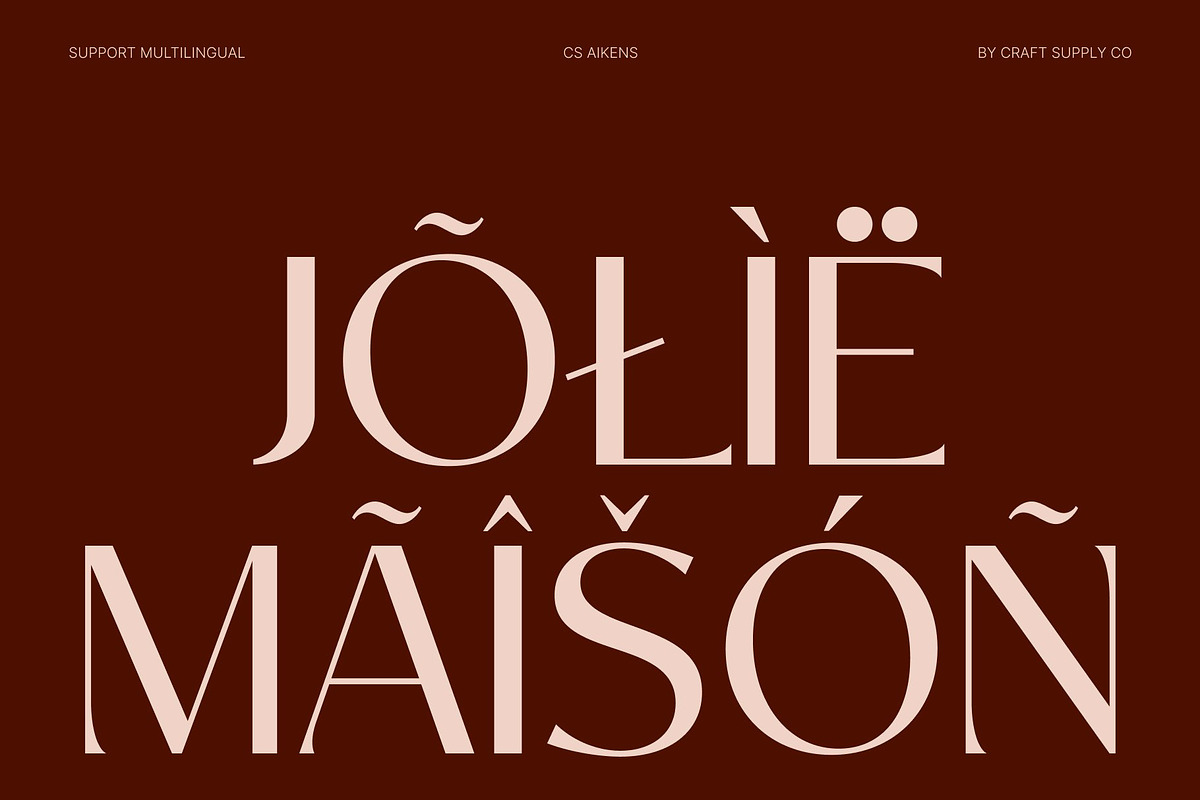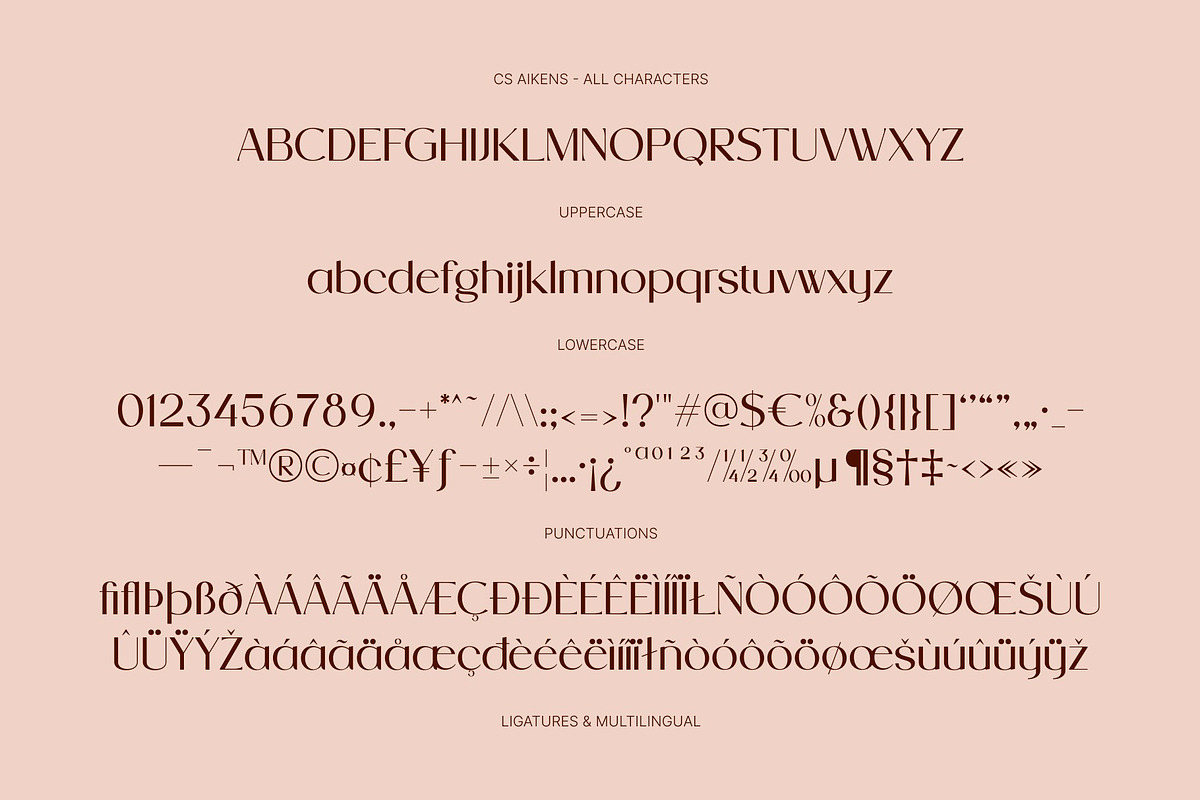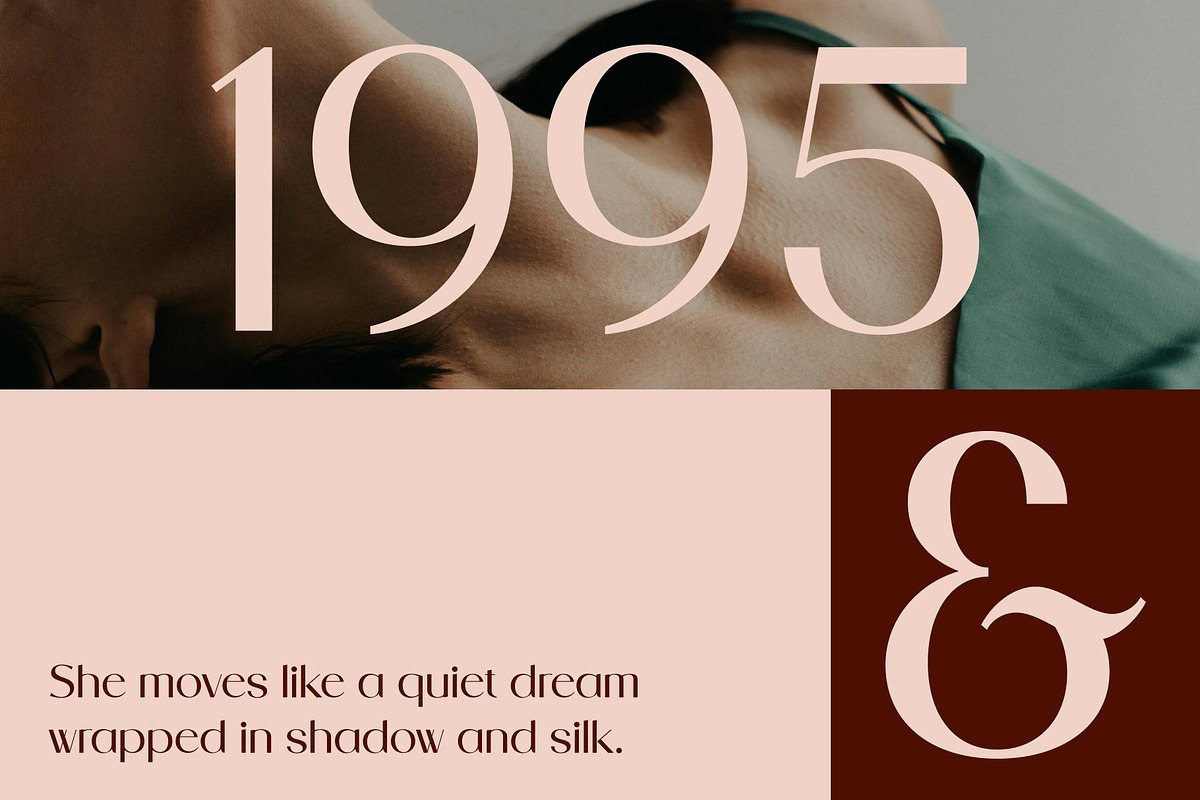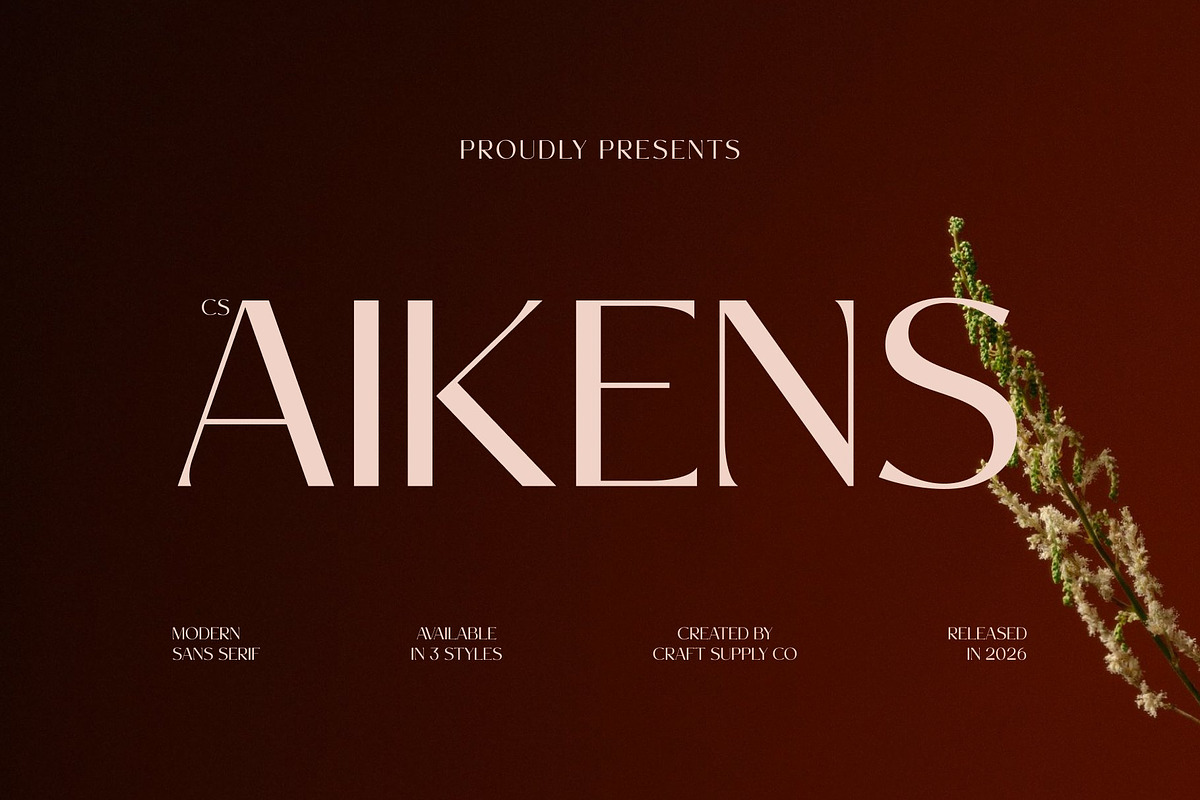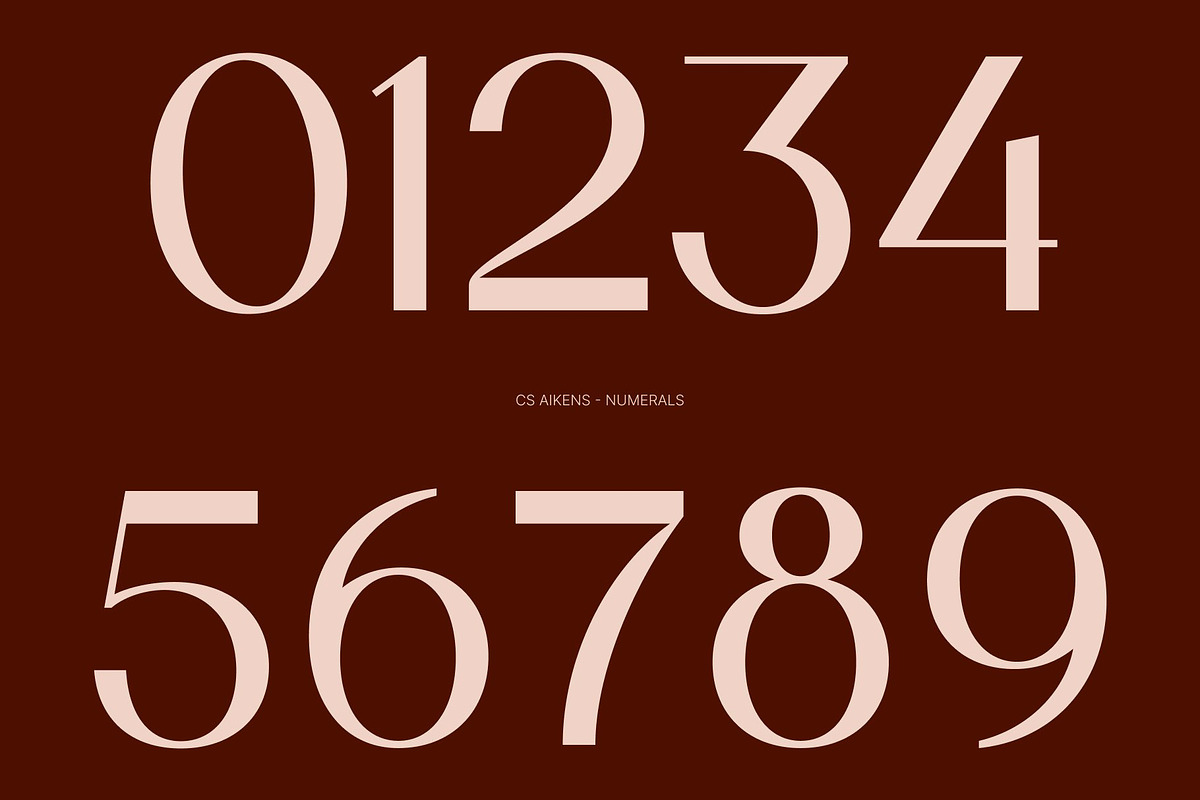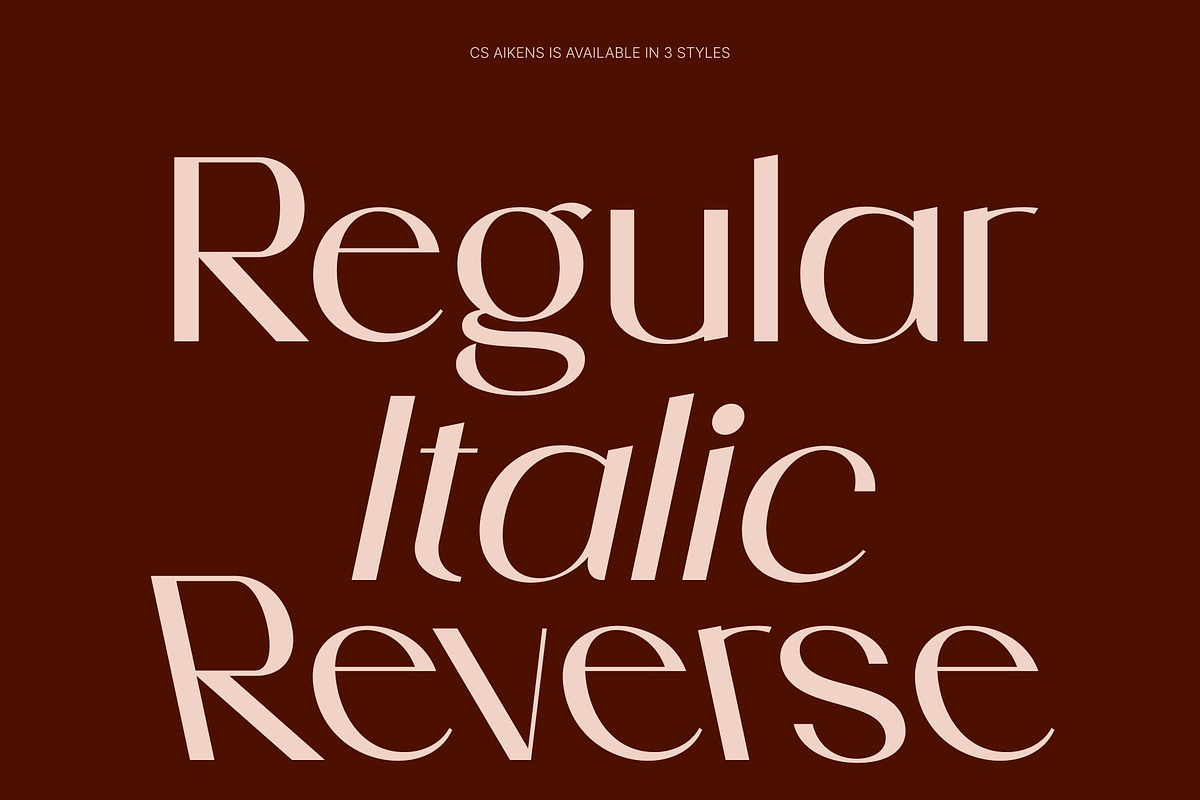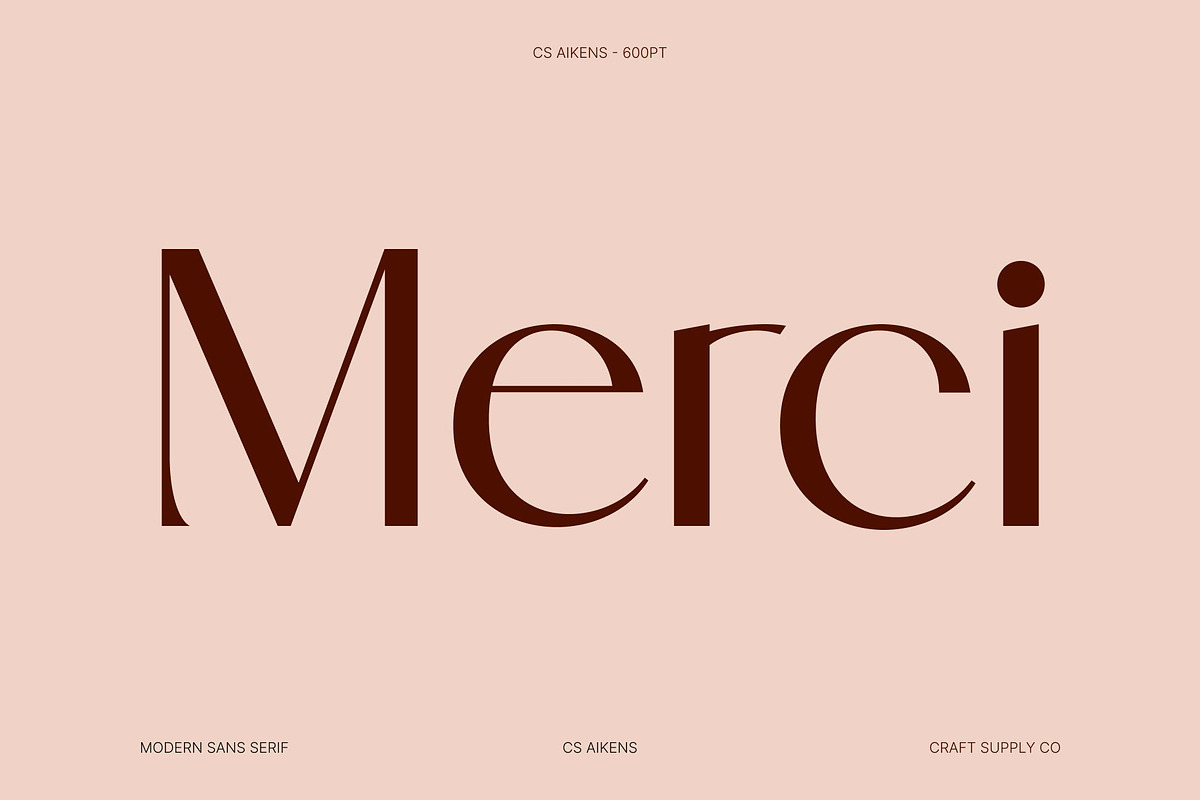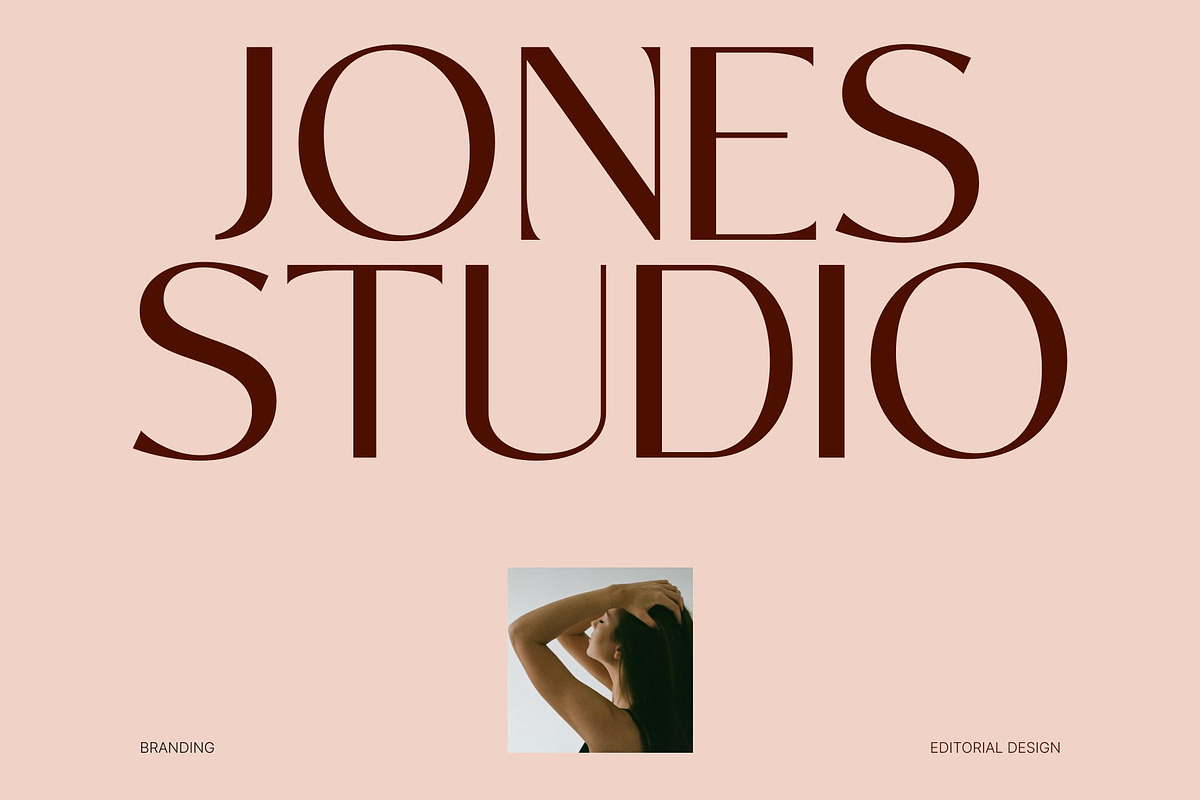
CS Aikens – Elegant Sans Serif
CS Aikens – Modern Sans Serif with Clean Elegant Style
Modern Sans Serif with Stylish Simplicity This is a modern and stylish sans serif font designed to radiate elegance through clean and refined design. With its balanced proportions and contemporary structure, this typeface delivers a polished and versatile visual identity that feels both fresh and sophisticated. It is crafted for designers who value clarity, minimalism, and modern appeal.
Clean Forms with Elegant Precision The defining feature of this font lies in its clean letterforms and smooth geometry. Each character is carefully constructed to ensure clarity and visual harmony, creating a seamless reading experience. This simplicity enhances its elegance, allowing the font to feel timeless while remaining distinctly modern.
Stylish Character with Contemporary Balance This font combines minimal sans serif aesthetics with subtle sophistication, resulting in a typeface that feels refined and adaptable. Its elegant structure supports a wide range of design applications, from bold display use to subtle editorial layouts, making it a versatile choice for modern creatives.
Perfect for Editorials, Branding, and Lifestyle Products From editorial design and branding systems to lifestyle products and fashion campaigns, this font provides a clean and elegant typographic solution. Its combination of simplicity, modern style, and refined clarity ensures your designs feel professional, stylish, and visually engaging.